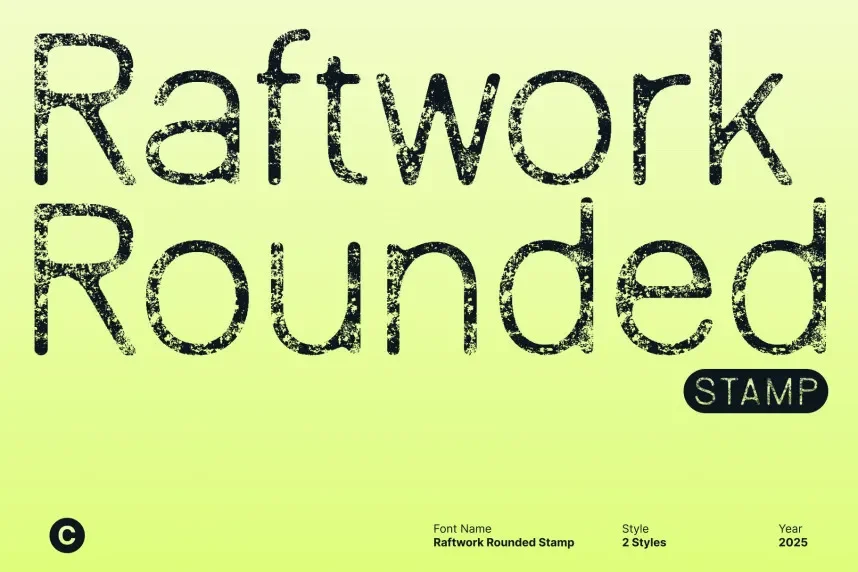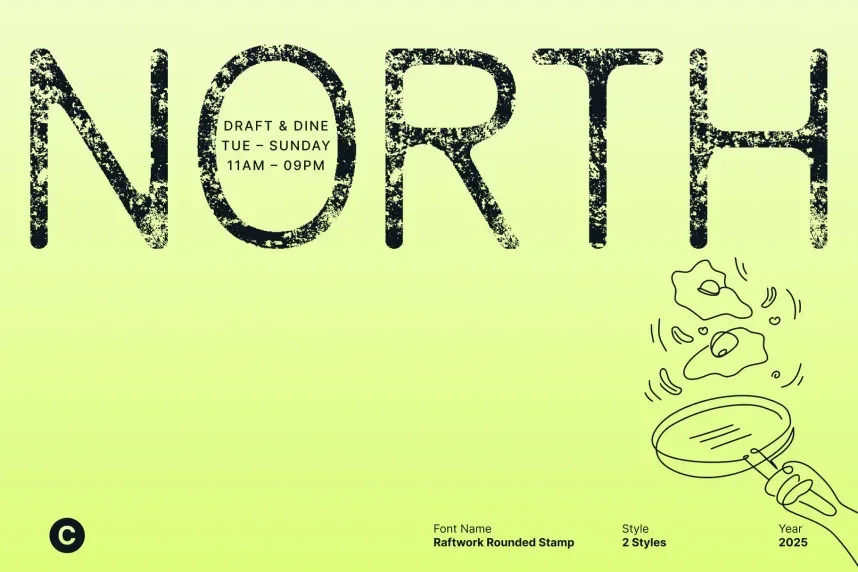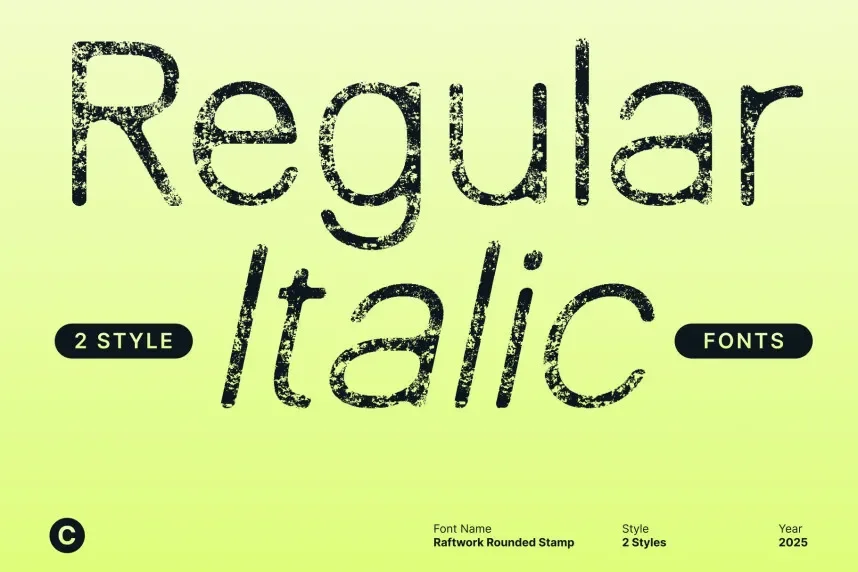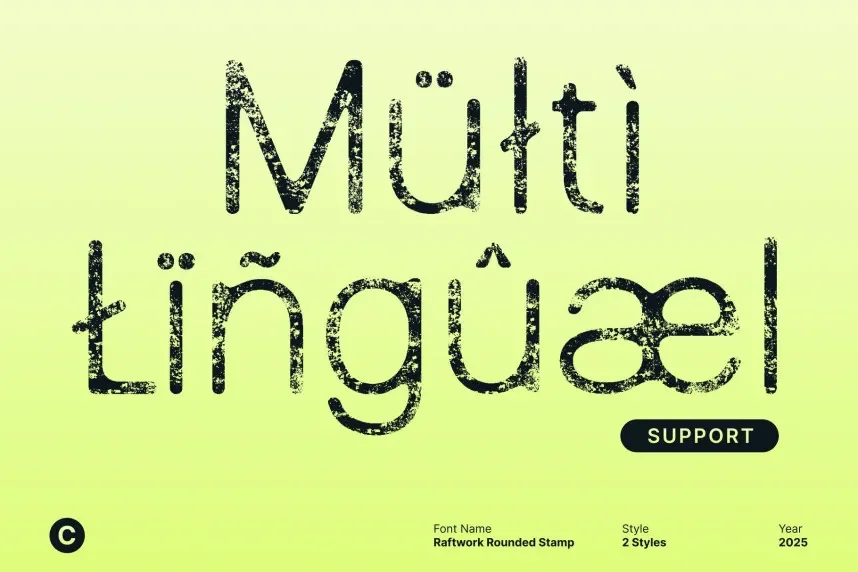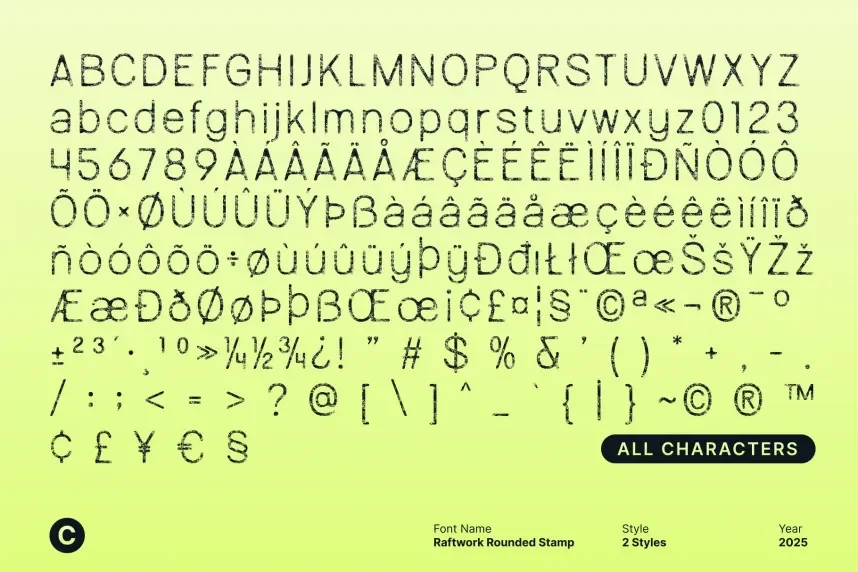
Raftwork Rounded Stamp Font helps designers maintain brand consistency when using textured display fonts. Many stamp fonts lose clarity in logos and posters, especially at smaller sizes. This font focuses on balance between texture and readability.
Raftwork Rounded Stamp Font belongs to the rounded stamp display category. It features bold letterforms, softened corners, and controlled roughness. The strokes are even, and character shapes stay simple, which prevents visual clutter. The rounded construction improves legibility in both digital design and print layouts.